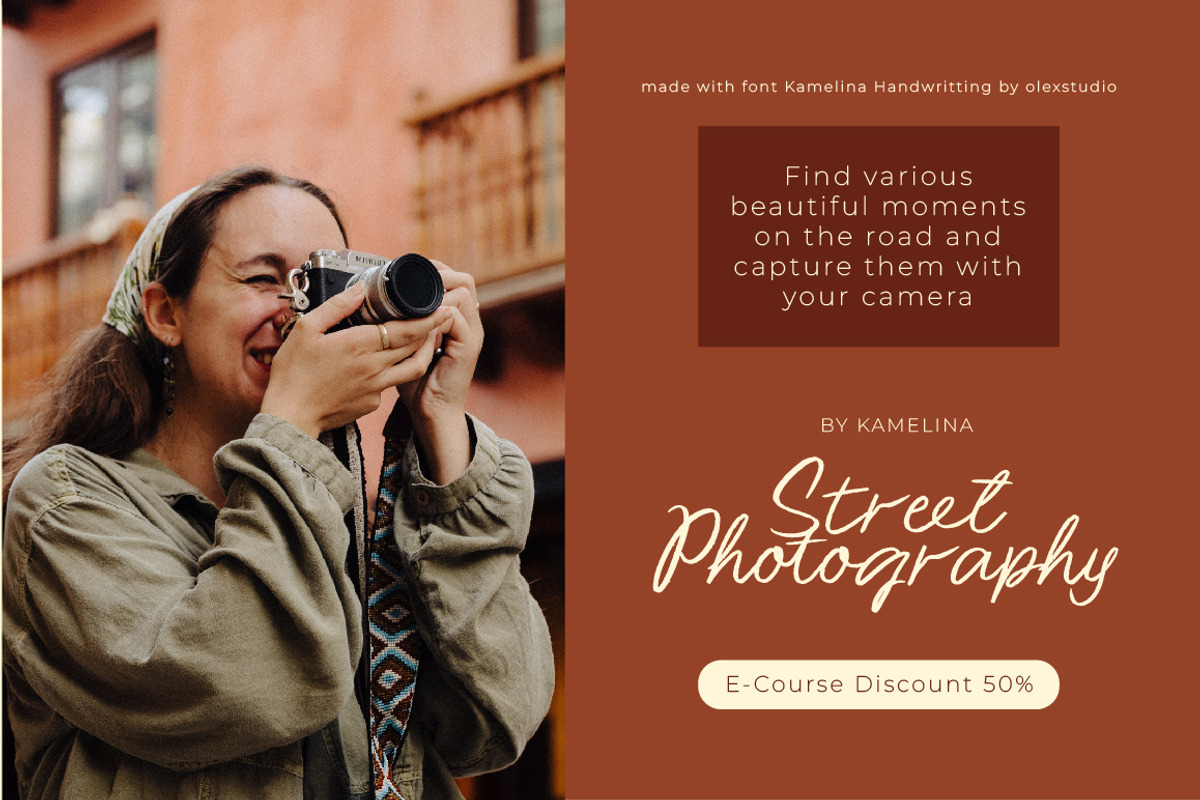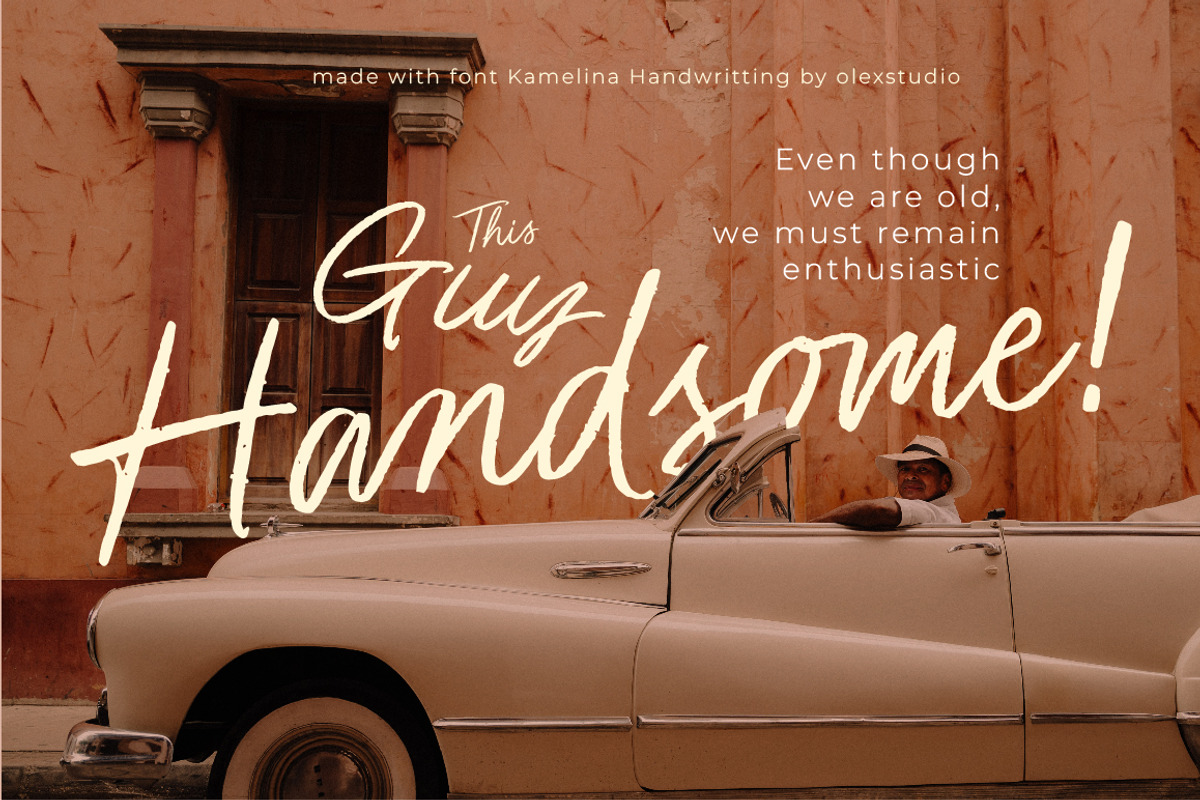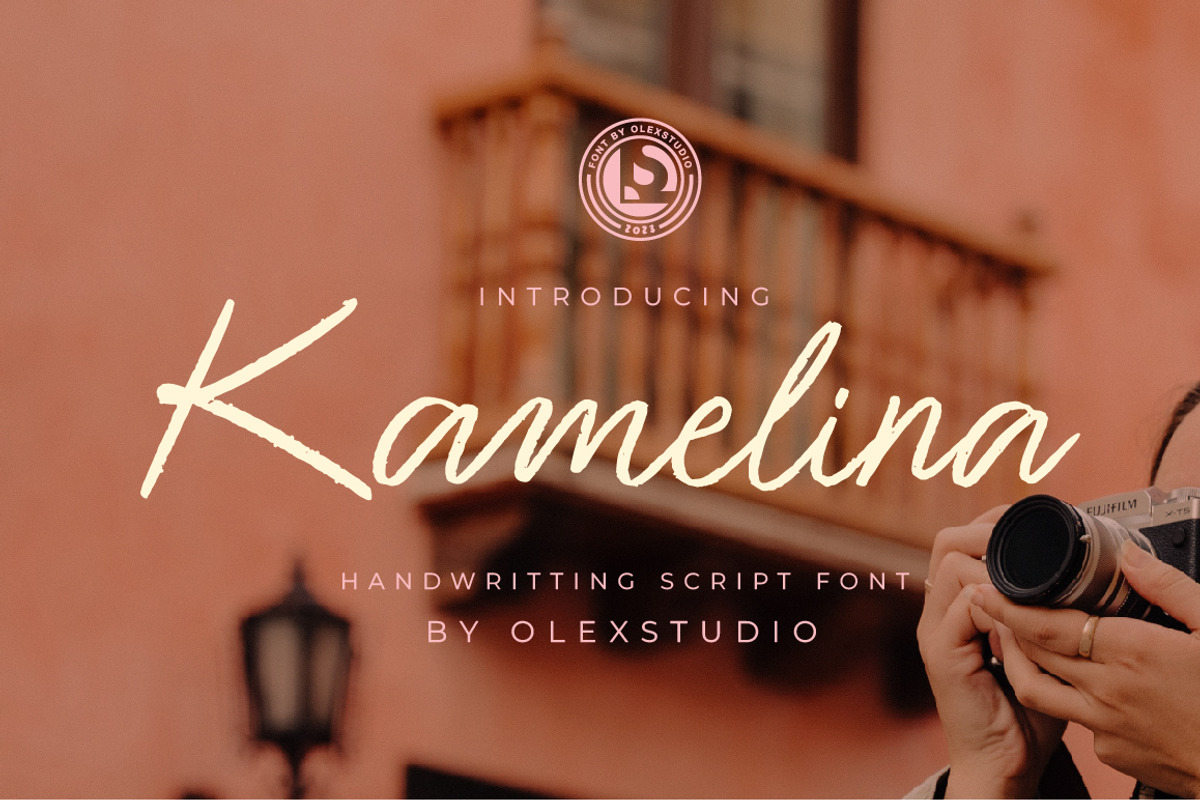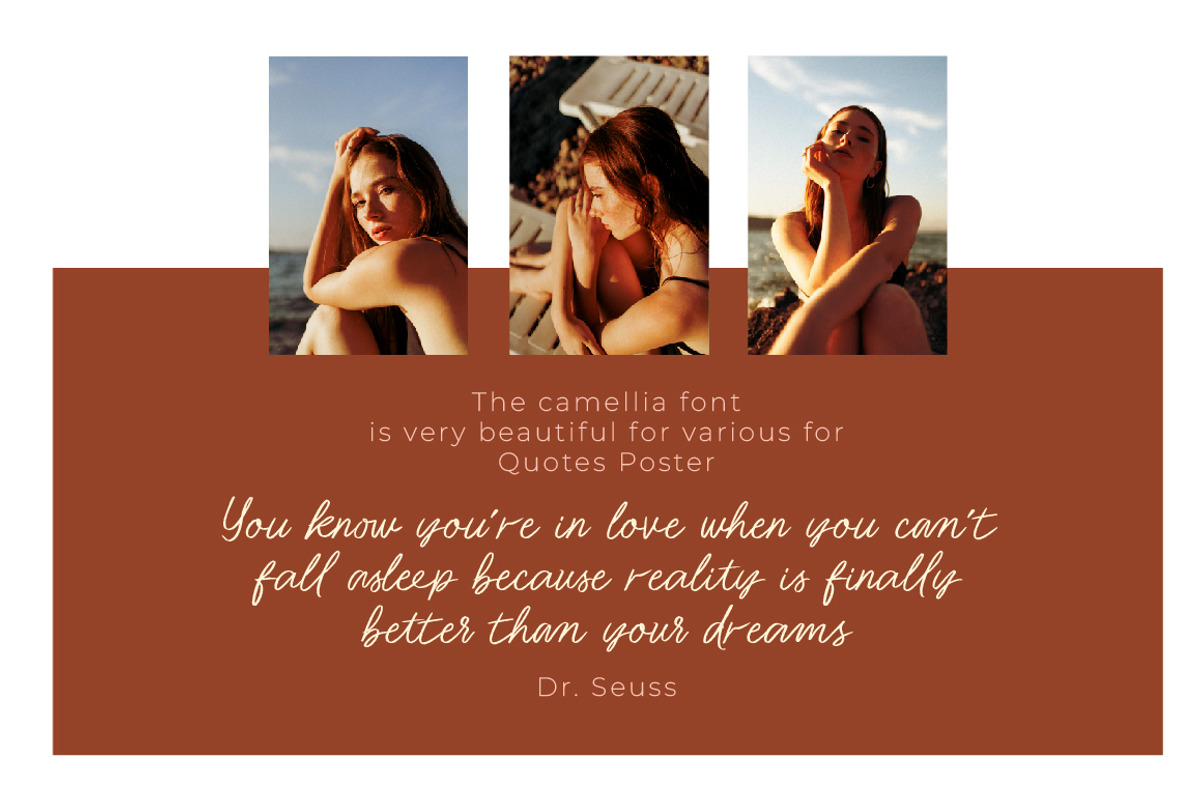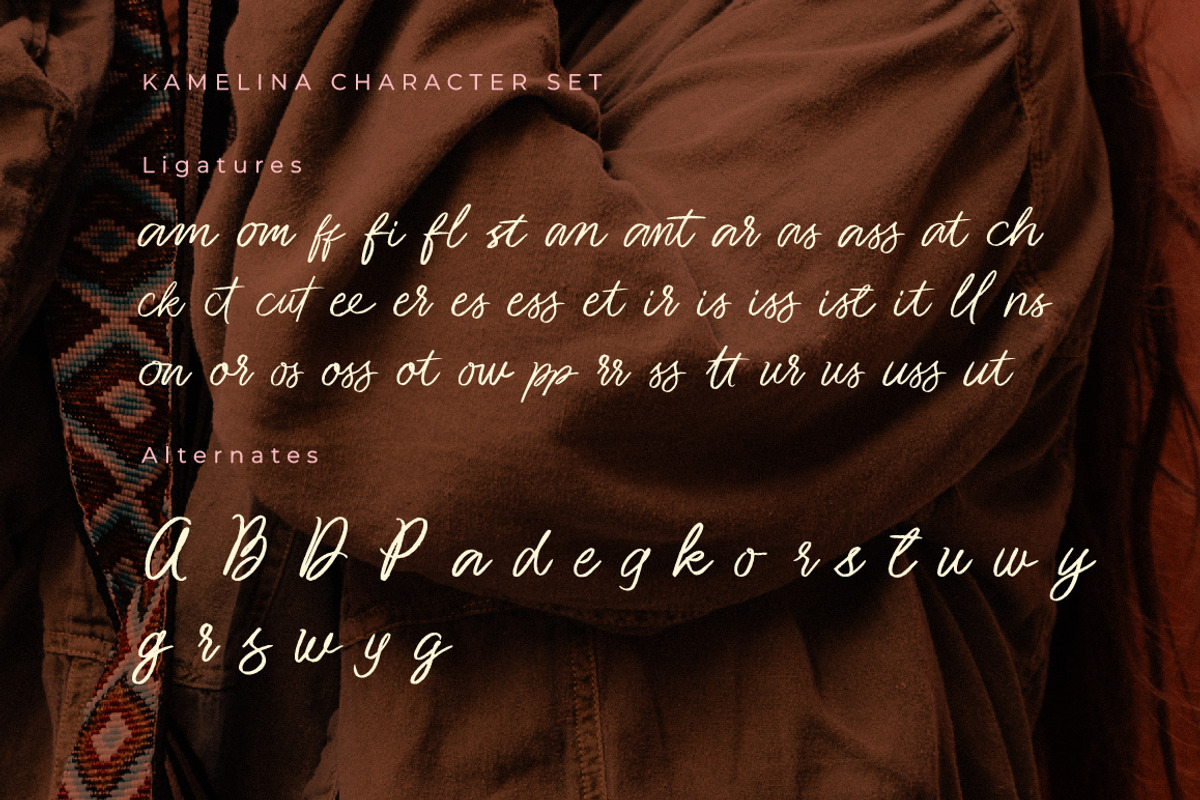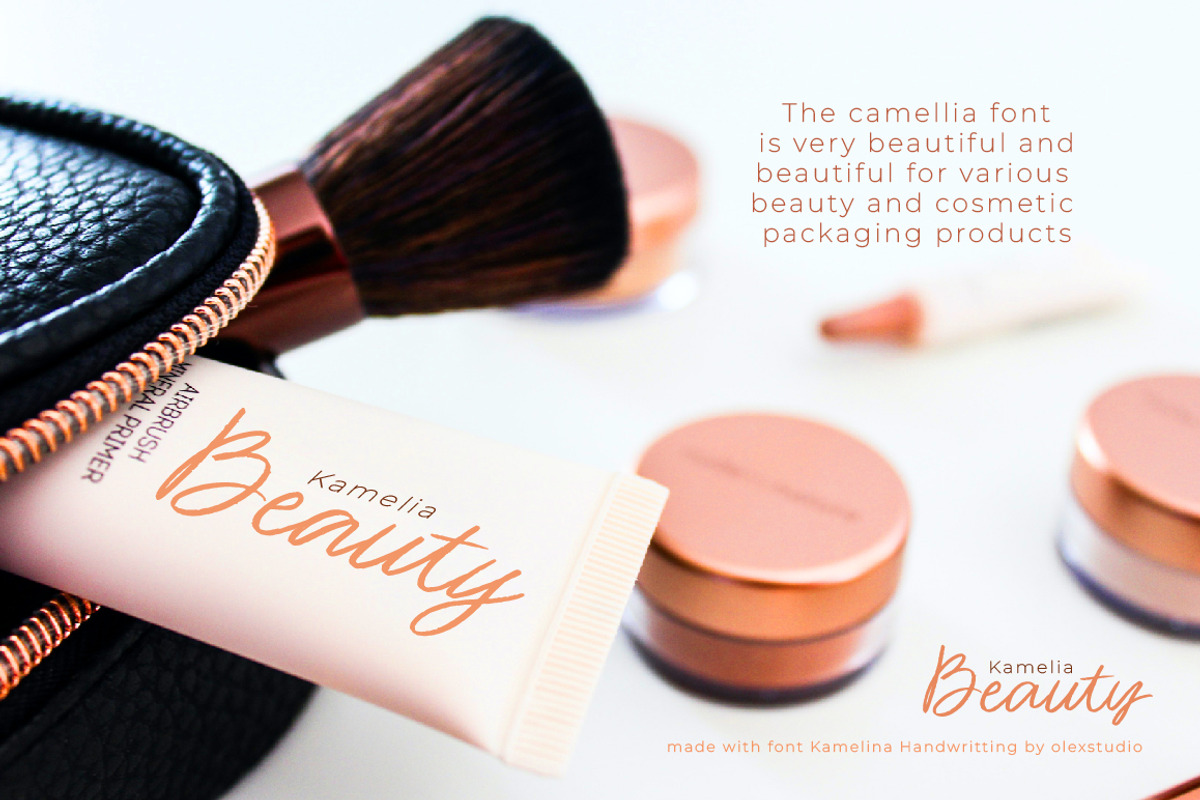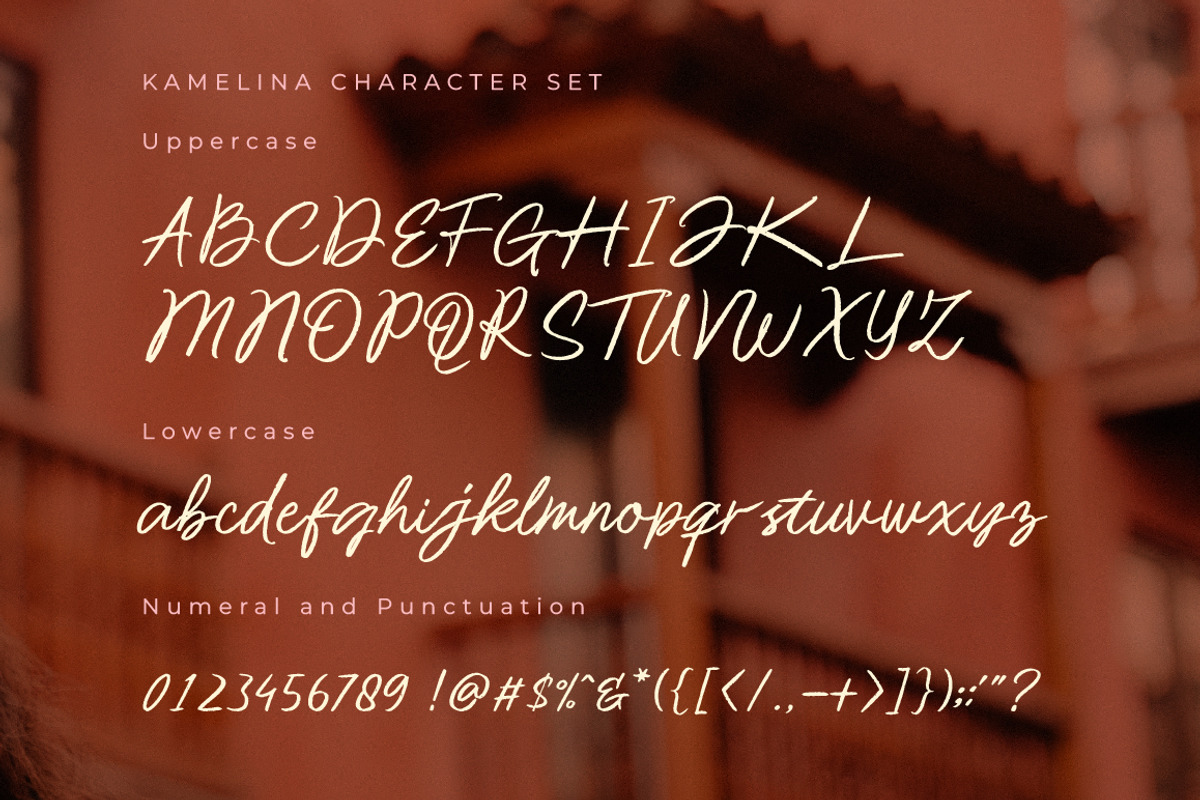
Kamelina Handwritting
Kamelina Handwritting Font will look gorgeous on all your designs, invitation, poster design, book design, branding materials, logo's, and all project design other.
Kamelina Handwritting Font contains standard characters, Lowercase, Uppercase, Lowercase Alternates, numbers, punctuation, ligatures and international glyphs. You will receive OTF, TTF files & WEBFONT.